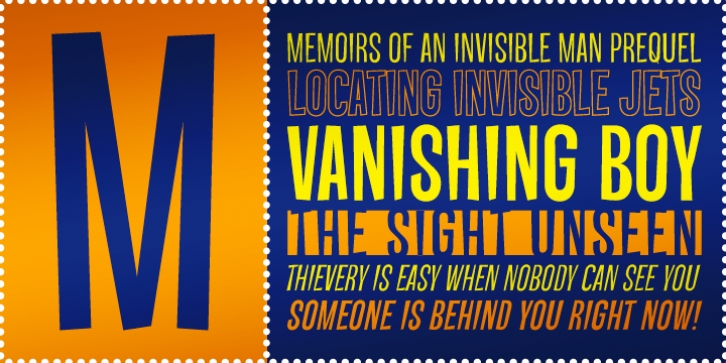
Vanishing Boy BTN downloadDesigner: Brian J. Bonislawsky
Publisher: Breaking the Norm
Vanishing Boy is a typeface inspired by the logotype from a comic book series called the Invisibles.
Complete with various weights, a cameo reversed style, and an unusual cropped style, this fun and offbeat typeface should be at your fingertips to let the good times begin!